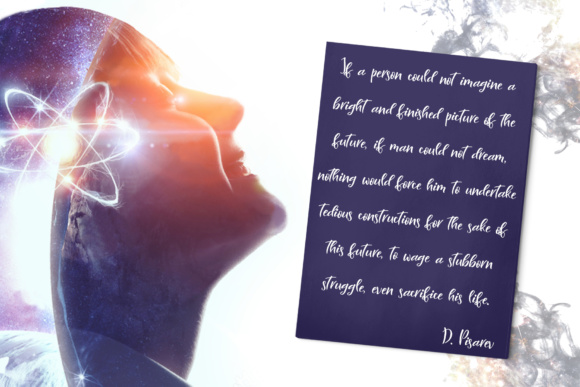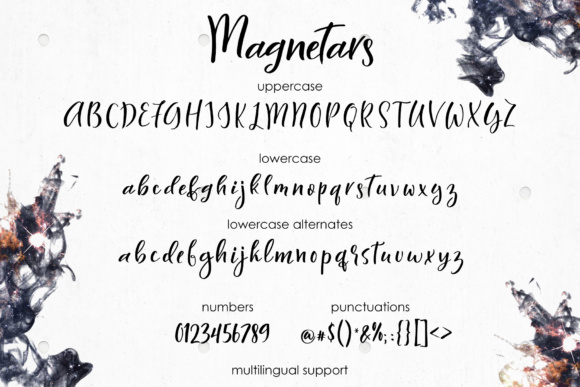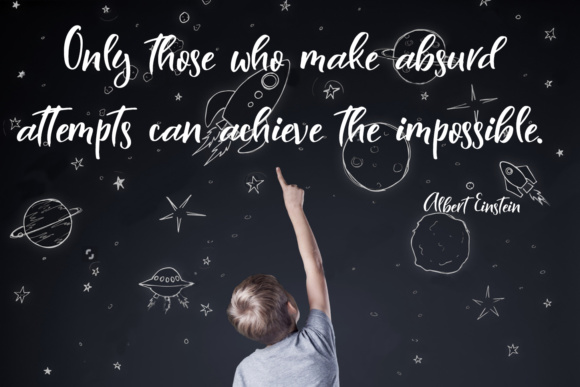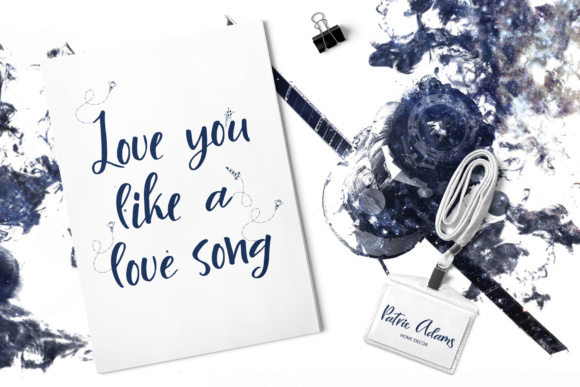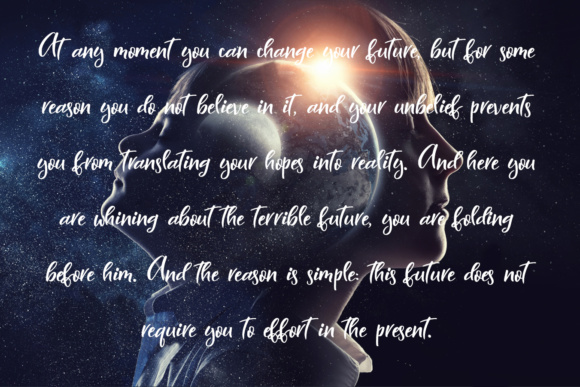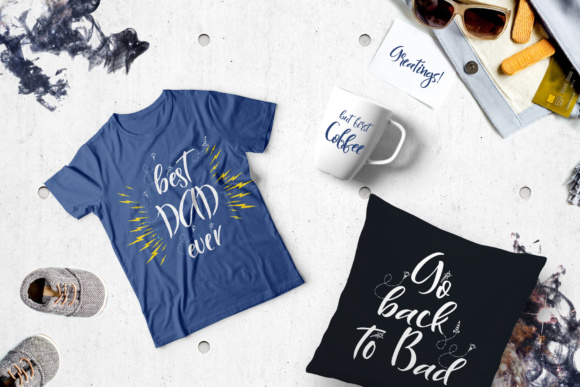
Introduction to Magnetars Font
Have you ever stared at a blank canvas, waiting for the perfect spark to ignite your next creative project? That’s where the right design resource can make all the difference. For designers looking to add a touch of high quality and retro chic to their work, the Magnetars Font is an invaluable asset.
This beautiful display font boasts a bold and painterly look that’s perfect for a wide range of project types. With its free download option and transparent background, you can easily incorporate it into your creative endeavors. Whether you’re working on a design project or simply looking to add a unique flair to your designs, the Magnetars Font is a valuable addition to any design toolkit.
Magnetars Font
- High-quality font with a unique, otherworldly design perfect for creative projects.
- Designed to be highly legible, even at small font sizes, making it ideal for titles, headings, and body text.
- Unique characteristics include its bold, futuristic style and extensive character set, making it perfect for science fiction, technology, and futuristic-themed projects.
Honest Review: Magnetars Font
I recently came across Magnetars Font and was excited to give it a try. As a designer, I’m always on the lookout for high-quality design resources that can elevate my creative project. Magnetars Font did not disappoint.
- ✨ High-quality typography: Magnetars Font boasts a unique, hand-drawn aesthetic that adds a touch of personality to any design.
- ✨ Transparent background: The font’s transparent background makes it easy to layer and composite with other design elements.
- ⚠️ Limited character set: Magnetars Font currently only includes a limited character set, which may not be suitable for extended texts.
Overall, Magnetars Font is a fantastic addition to any designer’s toolkit. Its unique style and free availability make it an excellent choice for creative projects. While there are some limitations, I believe Magnetars Font is a valuable design resource worth exploring further.
The Magnetars Font is perfect for creative projects, such as graphic design, digital art, and typography-based designs. It can also be used in business presentations, marketing materials, and social media graphics to add a touch of sophistication and style.